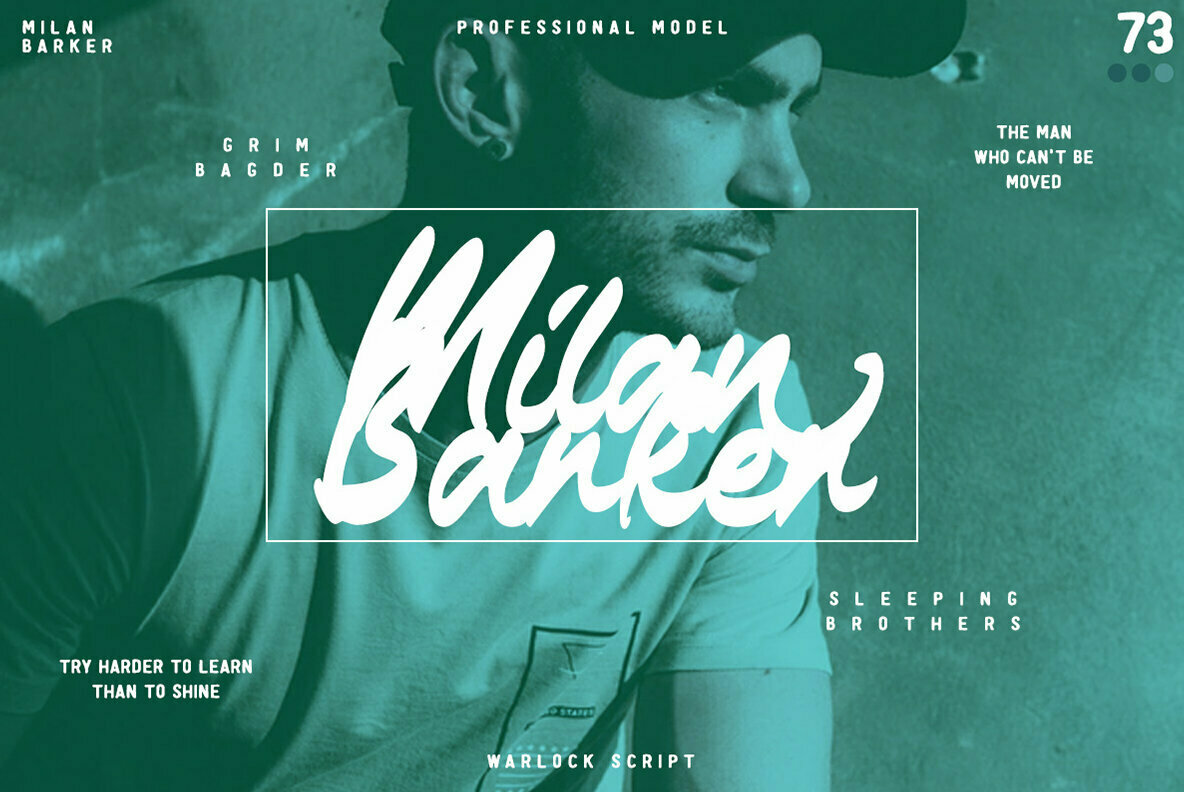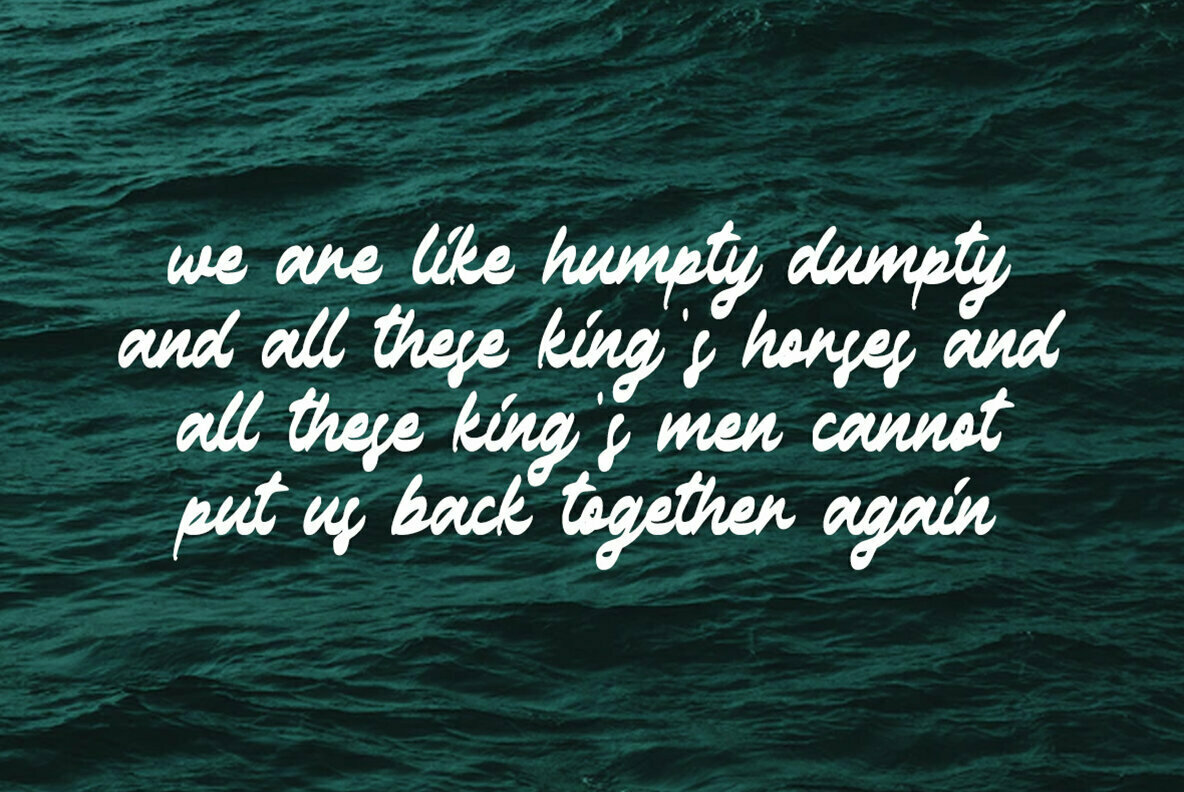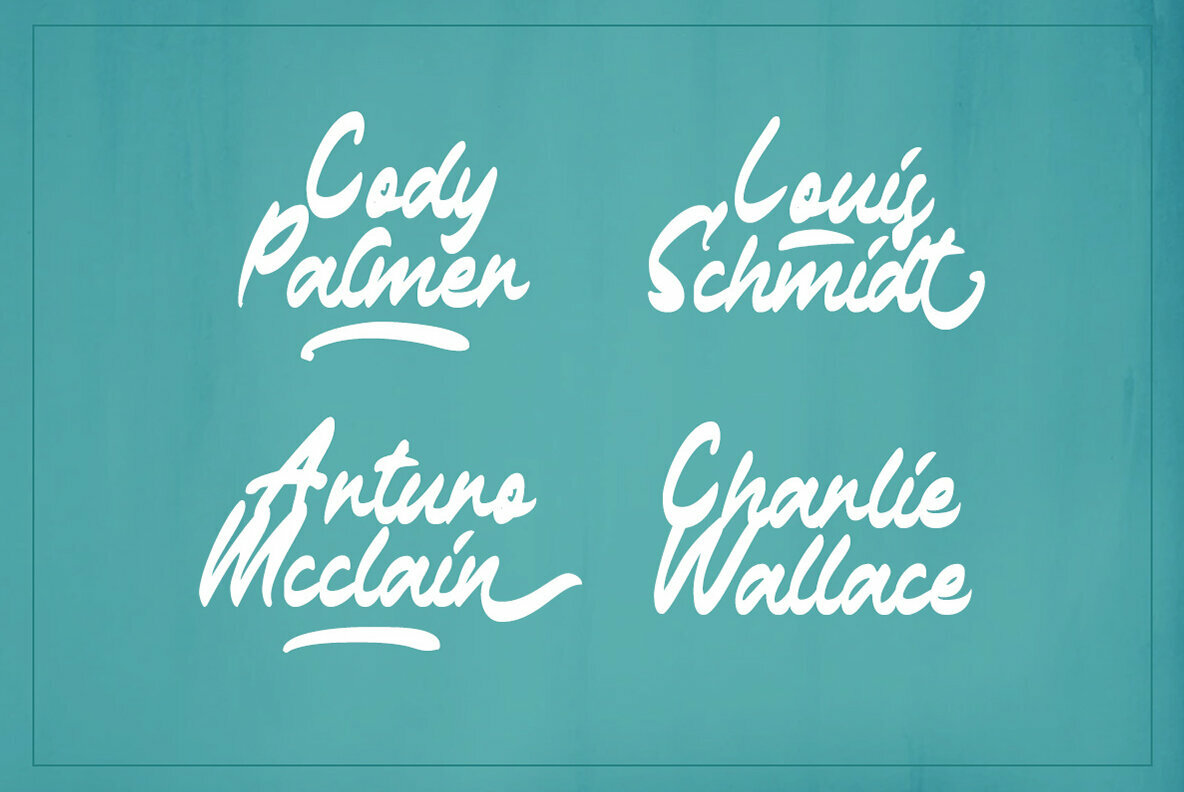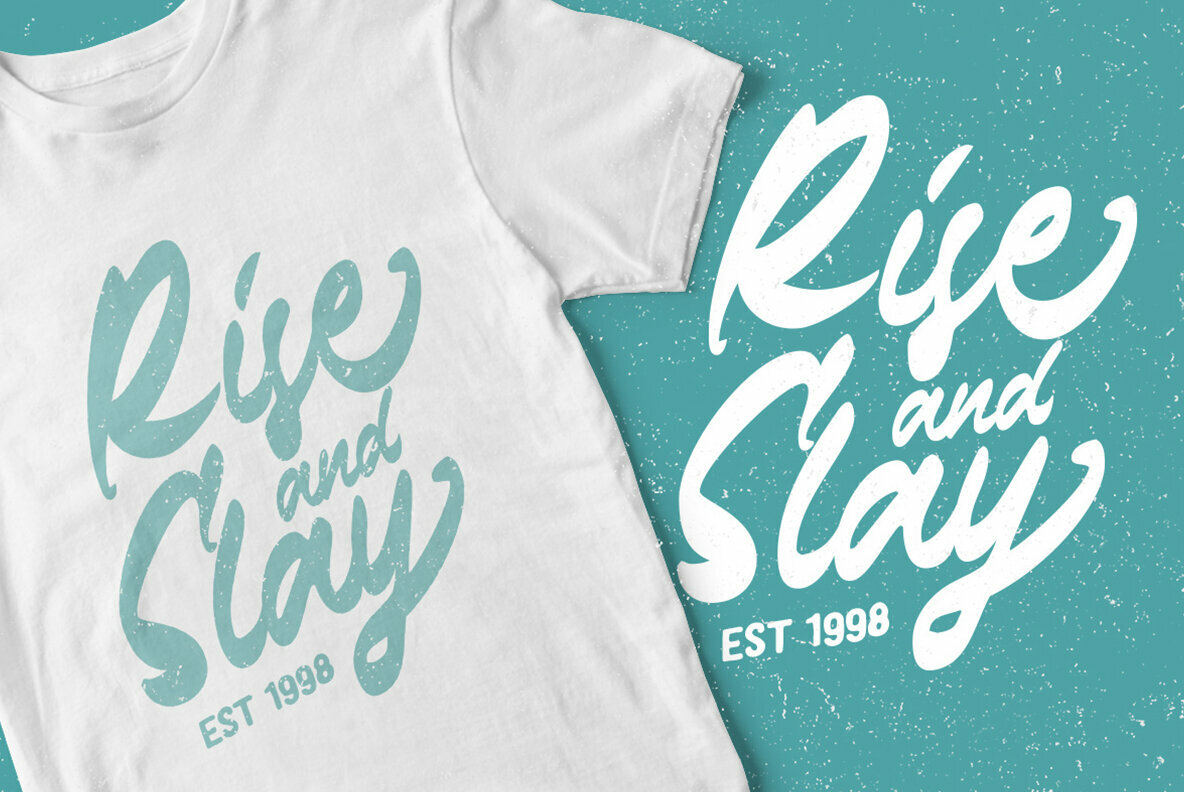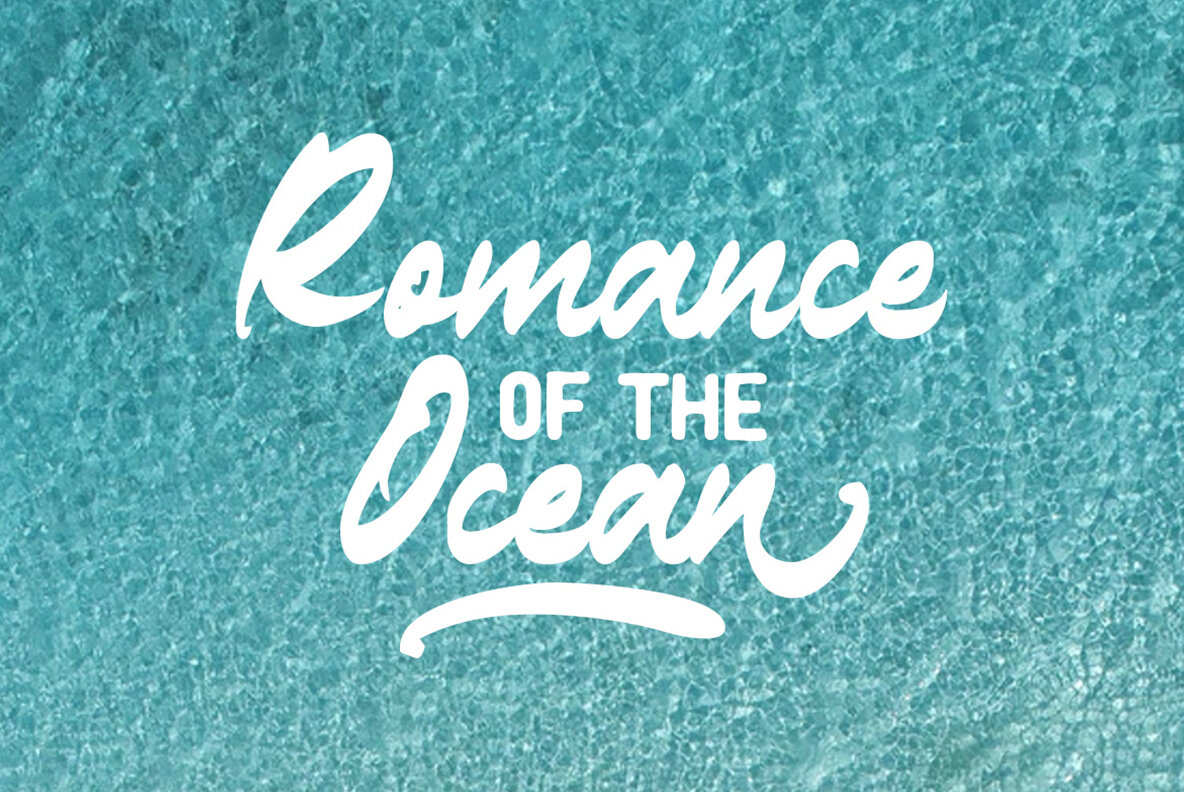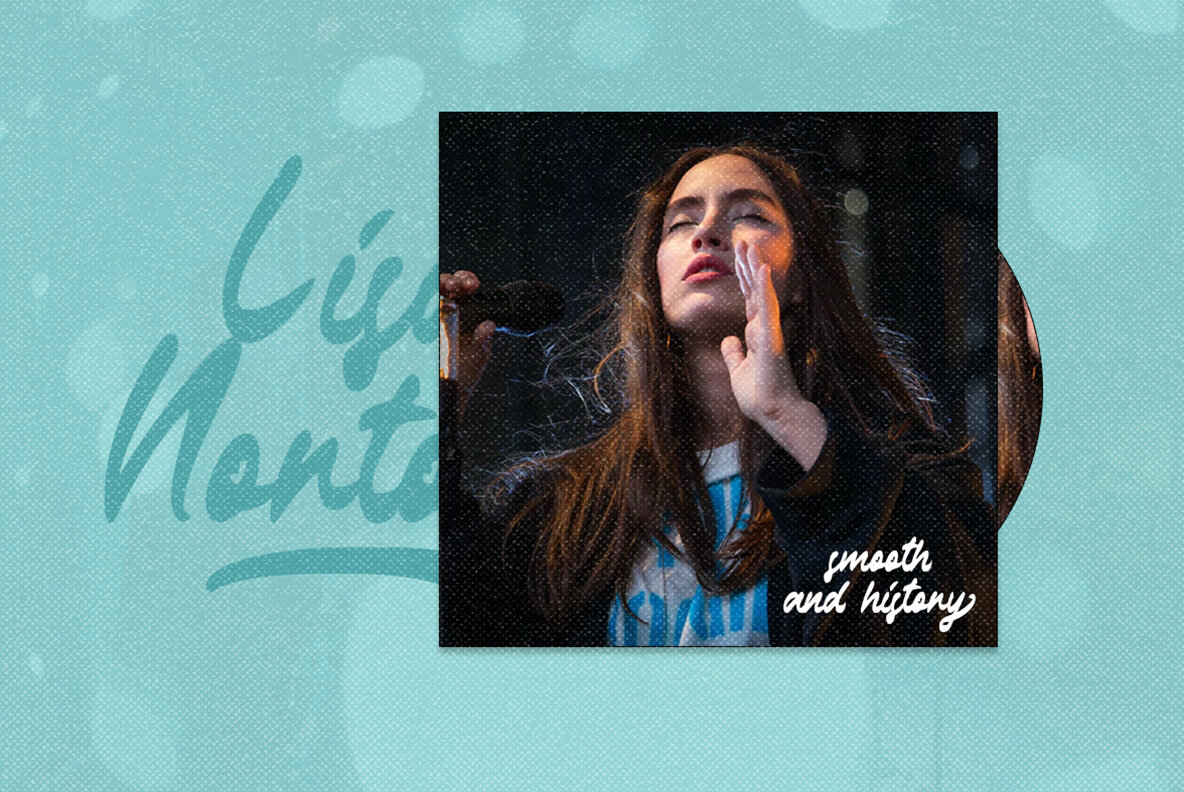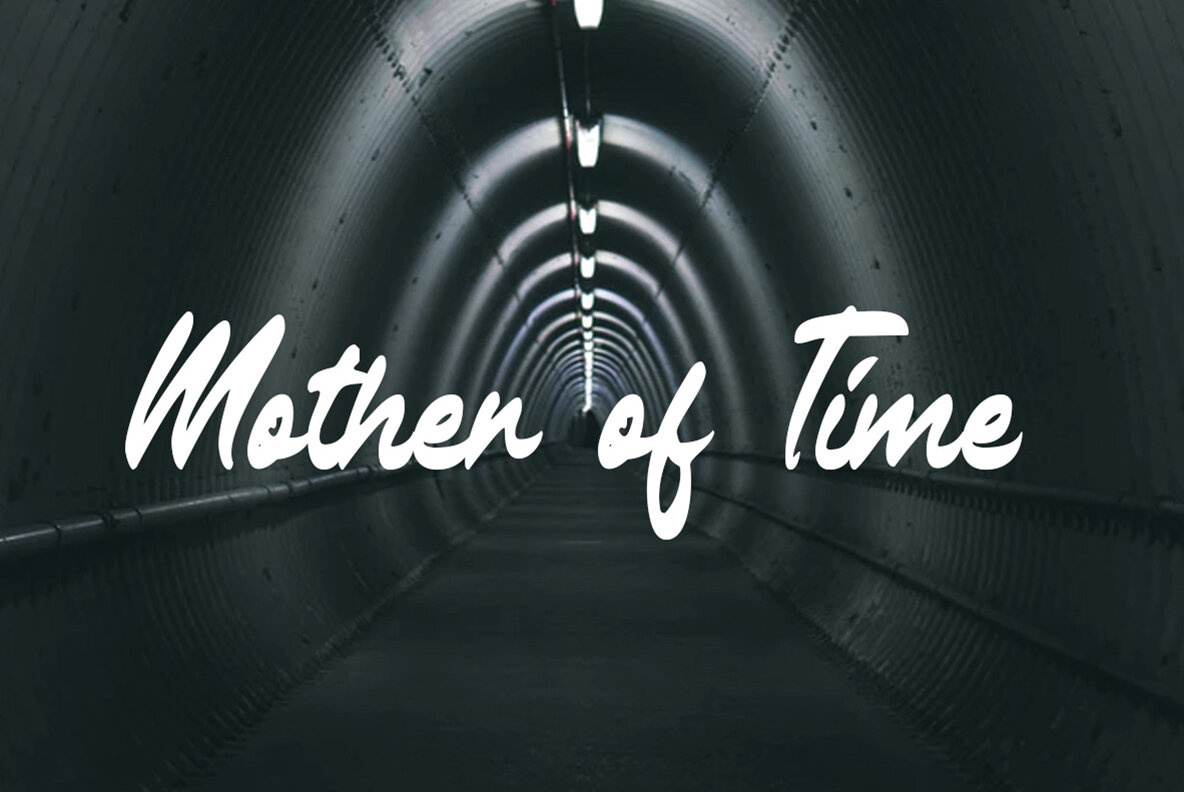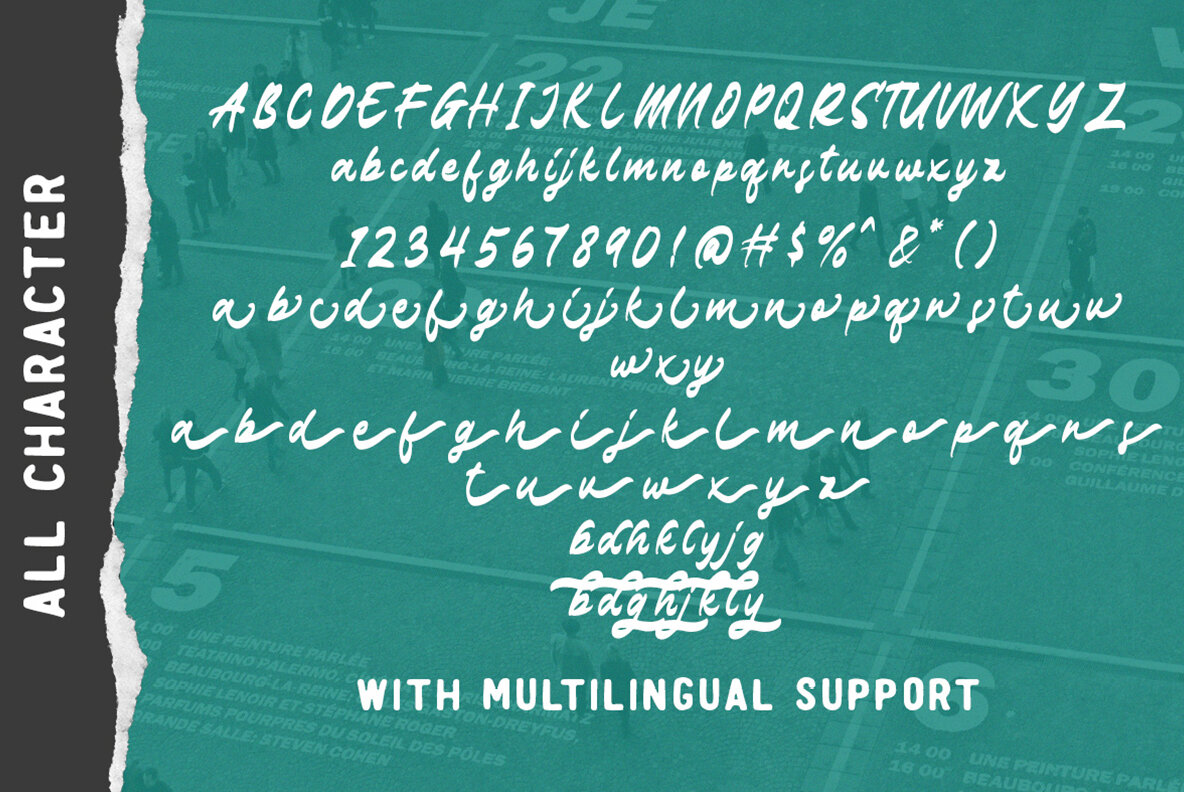
The Warlock Font
The Warlock
The Warlock font stands as an essential tool for any designer seeking versatility across multiple design projects. Its adaptability makes it an excellent choice for branding, packaging, logo creation, and more. Unique in its functionality, The Warlock allows effortless integration of underline swashes using a simple underscore and number sequence within words, such as War_1lock or War_2lock, adding a touch of flair to your designs.The Warlock: A Dynamic Font for Creative Projects